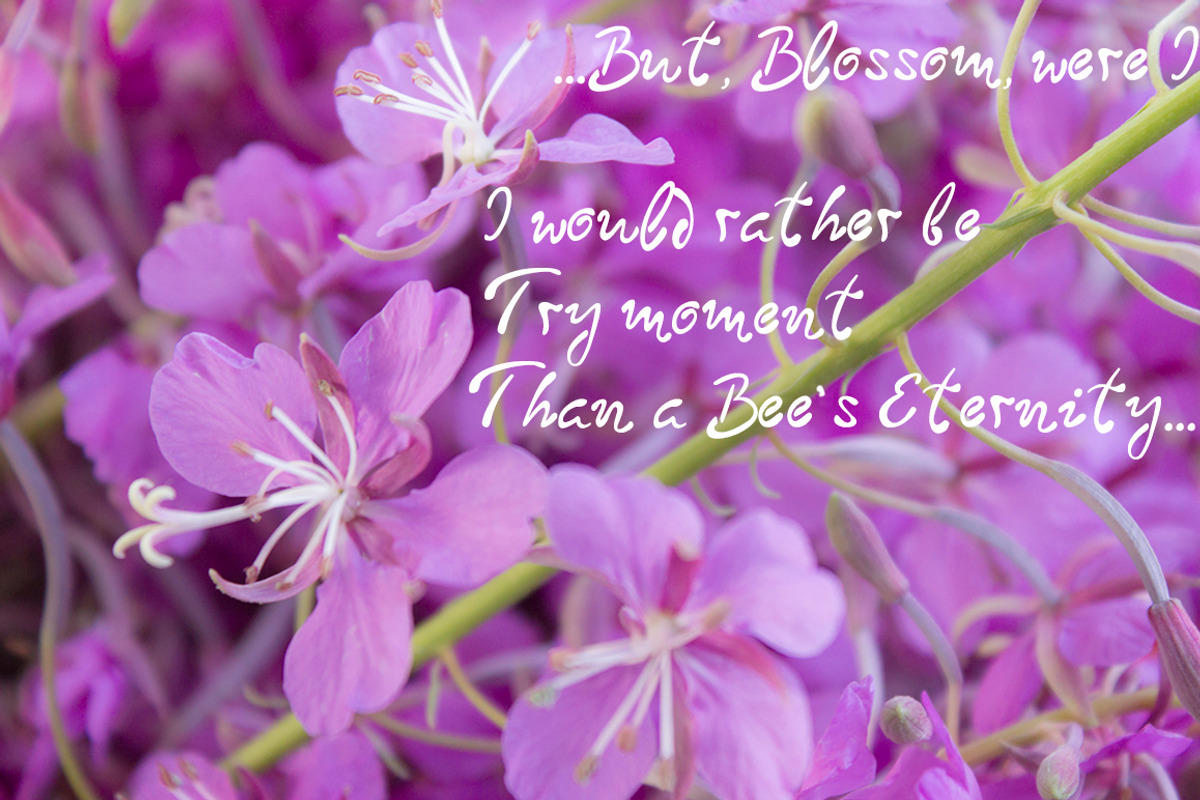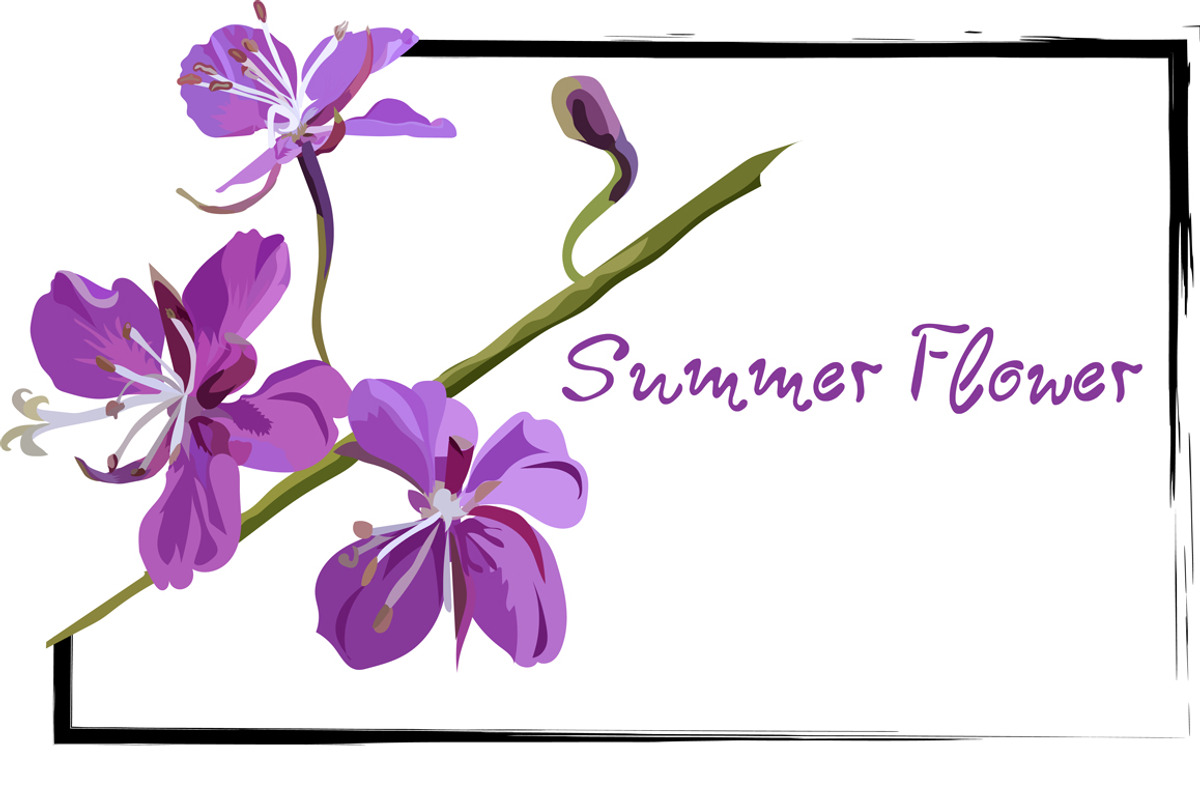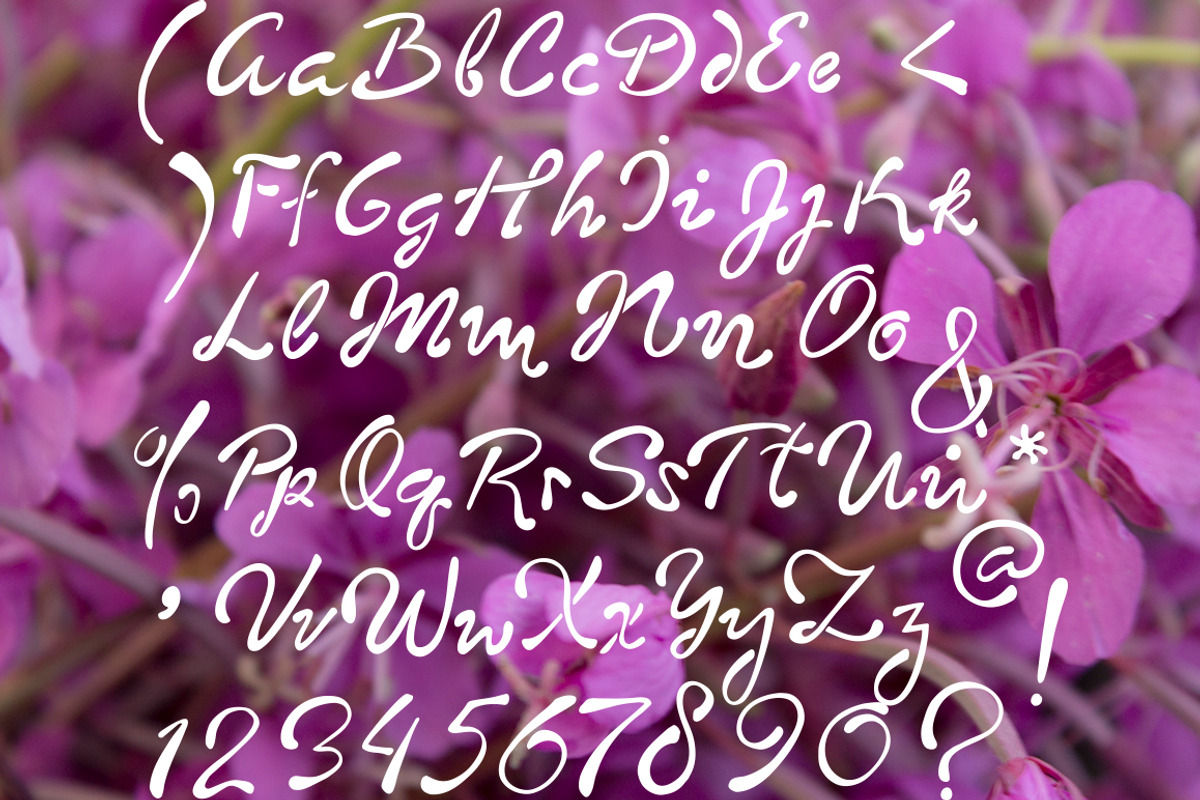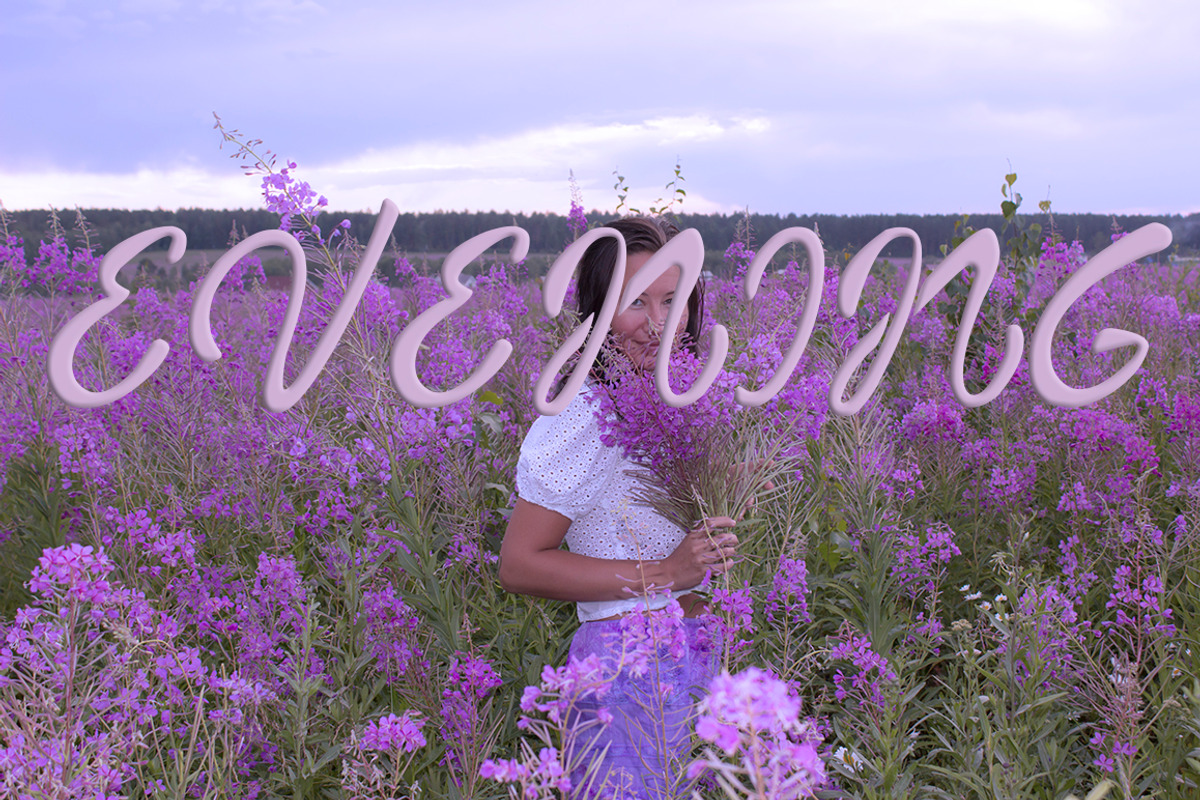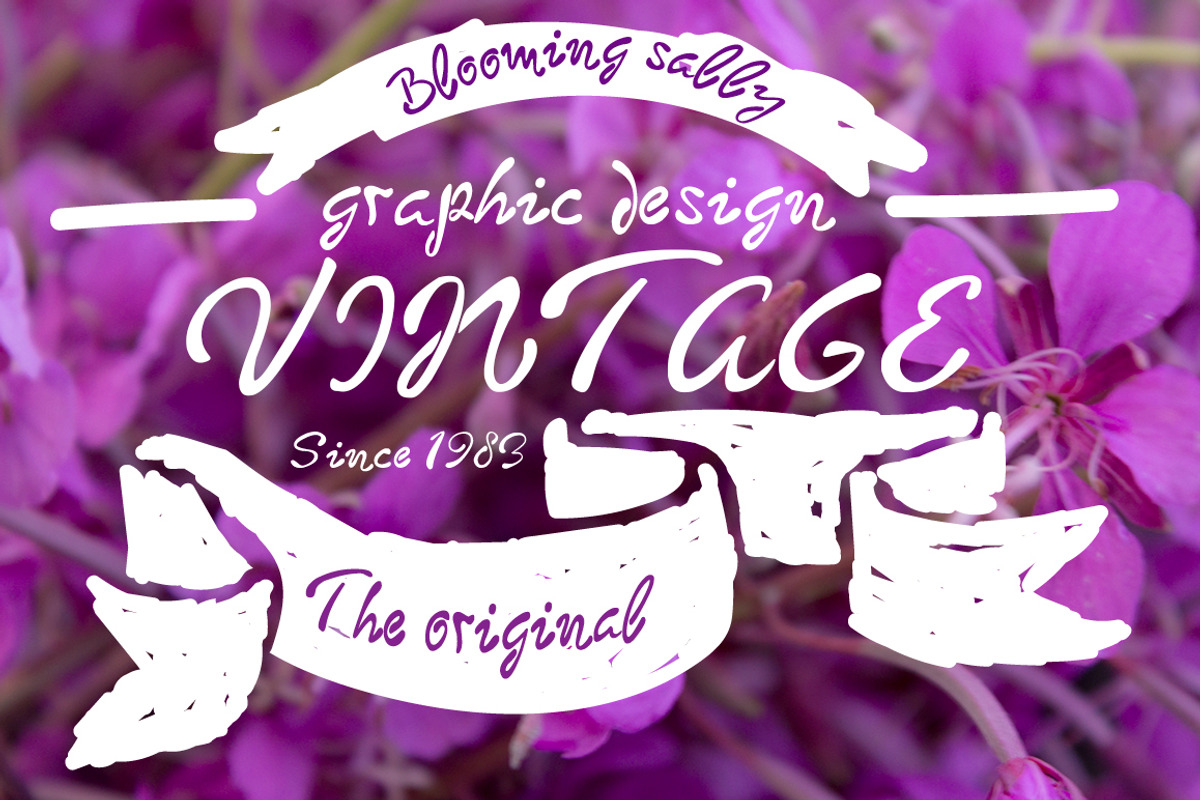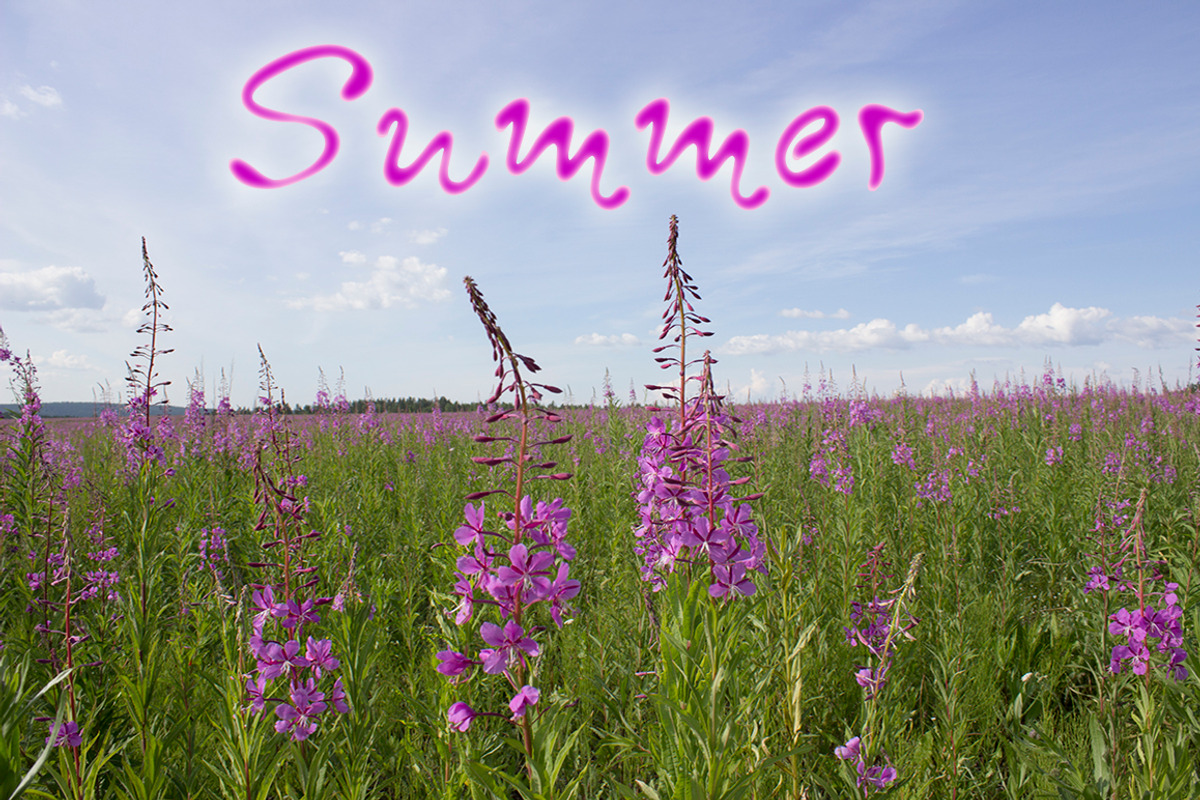
Blooming sally font
Blooming sally font by Ana Babii is a font selected for branding, posters, packaging, typography.
Blooming sally font by Ana Babii fits naturally into Branding, posters, packaging, typography.